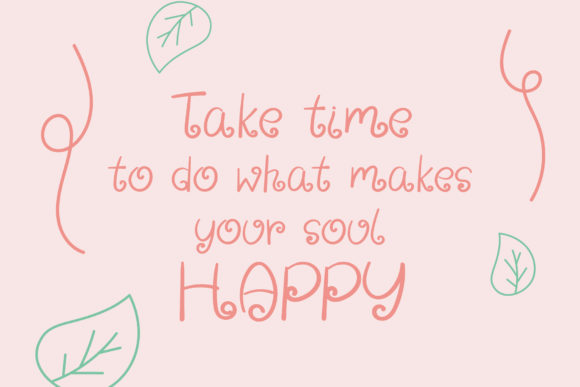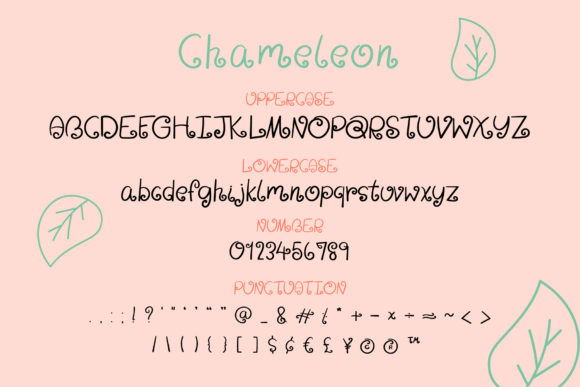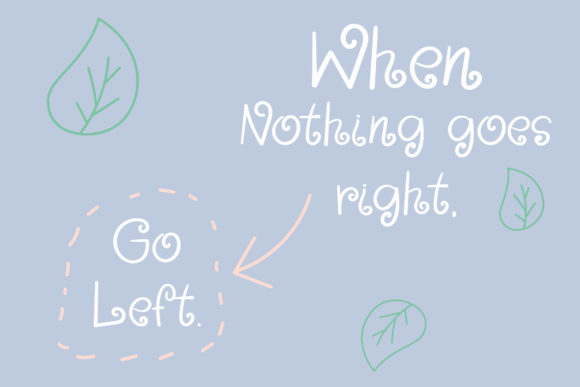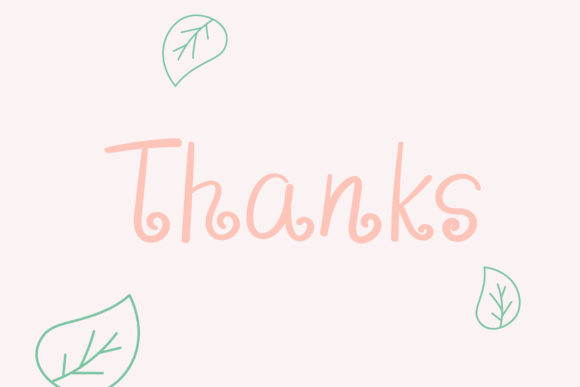
Introducing Chameleon Font: Elevate Your Creativity with Elegance
In the world of digital design, the right font can make all the difference. For crafters, artists, and designers looking to add a touch of sophistication to their projects, the Chameleon Font is a game-changer. This magical handwritten font, carefully crafted with elegance in mind, is perfect for turning any creative idea into a stunning piece of art.
The Versatility of Chameleon Font
Chameleon Font is not just another addition to your font library; it’s a versatile tool that can be used across various platforms and projects. Whether you’re designing for Instagram, crafting DIY projects, or working on professional branding materials, this font adapts seamlessly. Its unique blend of modern flair and classic elegance makes it suitable for a wide range of applications.
Perfect for Instagram and Social Media
In the age of visual storytelling, Instagram and other social media platforms have become essential for creatives to showcase their work. The Chameleon Font, with its stylish and contemporary feel, can elevate your Instagram posts, stories, and bio, making your profile stand out. Use it to add captions to your artwork, share quotes, or simply to brand your feed with a consistent aesthetic.
Elevate Your DIY Projects
For crafters and DIY enthusiasts, the Chameleon Font offers endless possibilities. From hand-lettering projects and card making to crafting personalized gifts and decorations, this font can add a professional and elegant touch to your creations. Its clear and readable style ensures that your messages and designs are conveyed beautifully, making your DIY projects truly special.
Features of Chameleon Font
- Magical Handwritten Style: Chameleon Font boasts a unique, handcrafted look that brings warmth and personality to your designs.
- Elegant and Versatile: Its elegant design makes it perfect for a variety of projects, from formal to casual.
- Easy to Read: Despite its artistic nature, the font maintains clarity, ensuring your messages are easily readable.
- Adaptable: Suitable for both digital and print projects, offering flexibility in its use.
Tips for Using Chameleon Font
To make the most of the Chameleon Font, consider the following tips:
- Mix and Match: Combine Chameleon Font with other fonts to create interesting contrasts and hierarchies in your designs.
- Experiment with Colors: The font’s elegant style pairs well with a variety of colors. Don’t be afraid to experiment and find the perfect match for your project.
- Play with Sizes: Utilize different font sizes to emphasize certain parts of your text and create visual interest.
The Chameleon Font is more than just a font; it’s a creative tool that can transform your designs and projects. Its magical handwritten style, combined with elegance and versatility, makes it an essential asset for designers, crafters, and anyone looking to add a touch of sophistication to their work. Whether you’re creating for Instagram, working on DIY projects, or designing professional materials, Chameleon Font is sure to elevate your creativity and turn your ideas into true pieces of art.